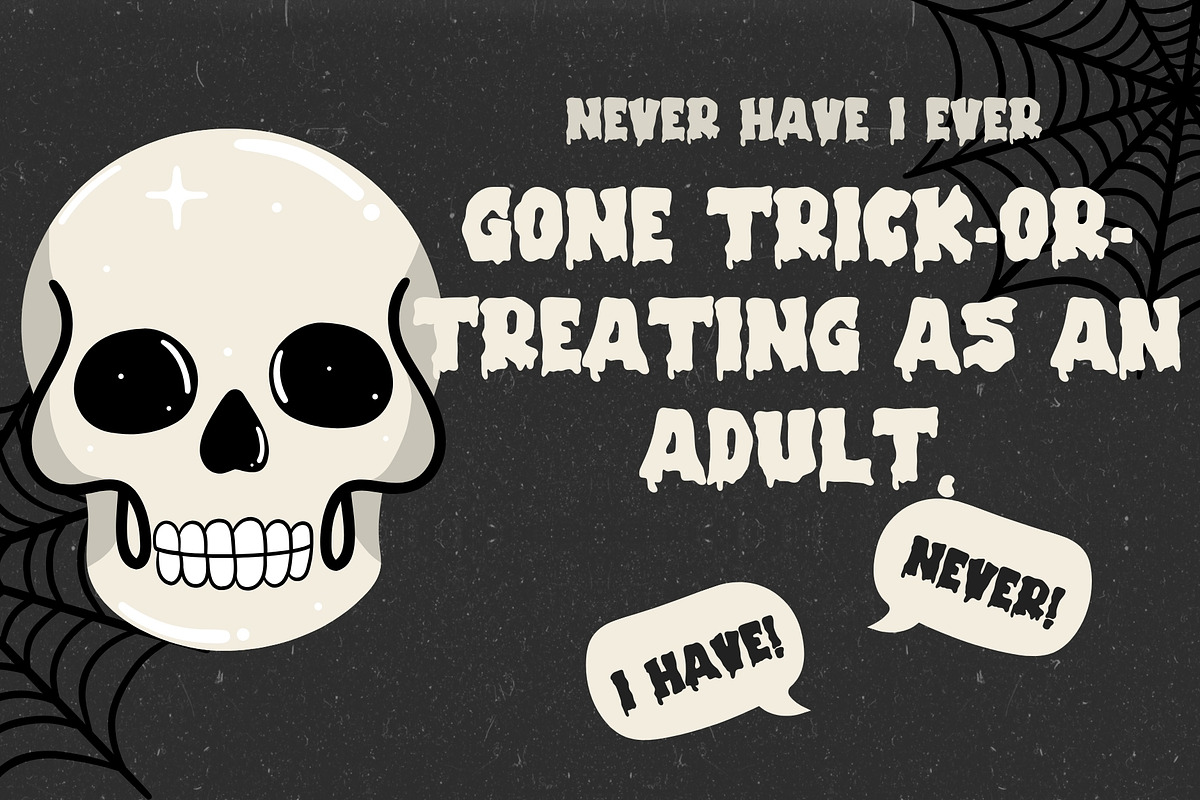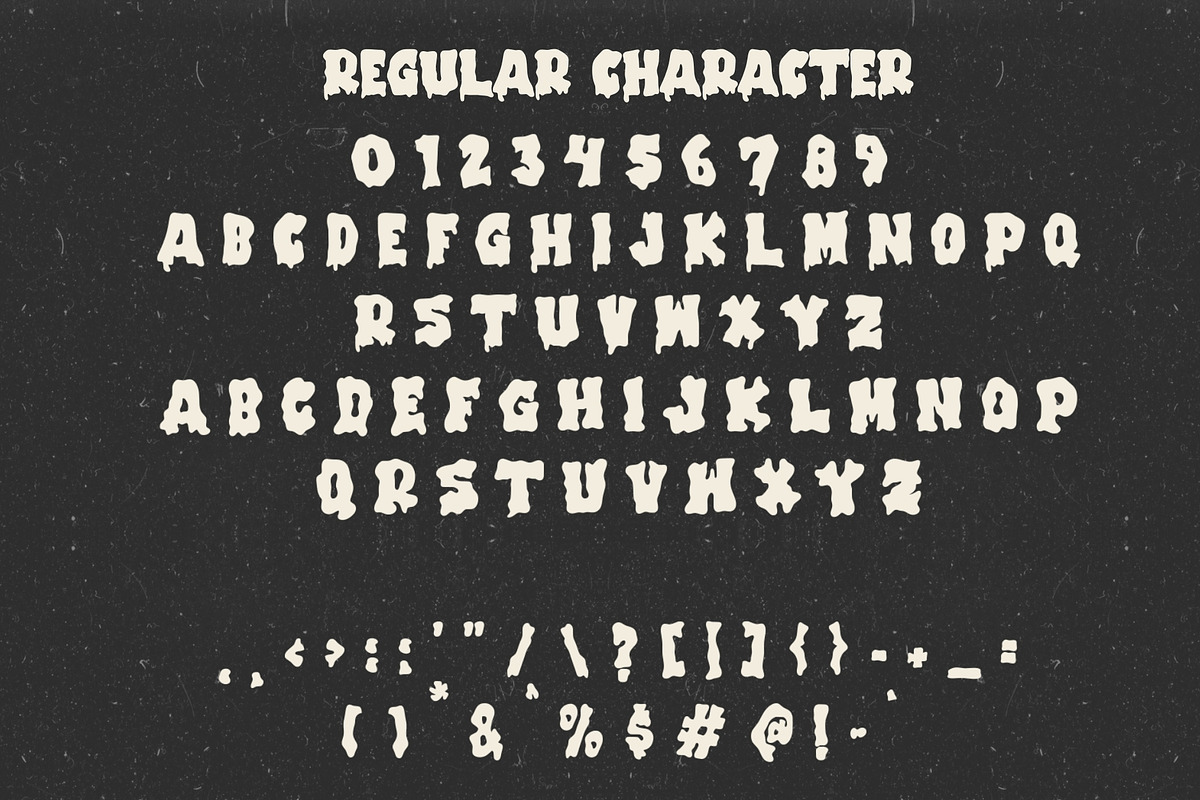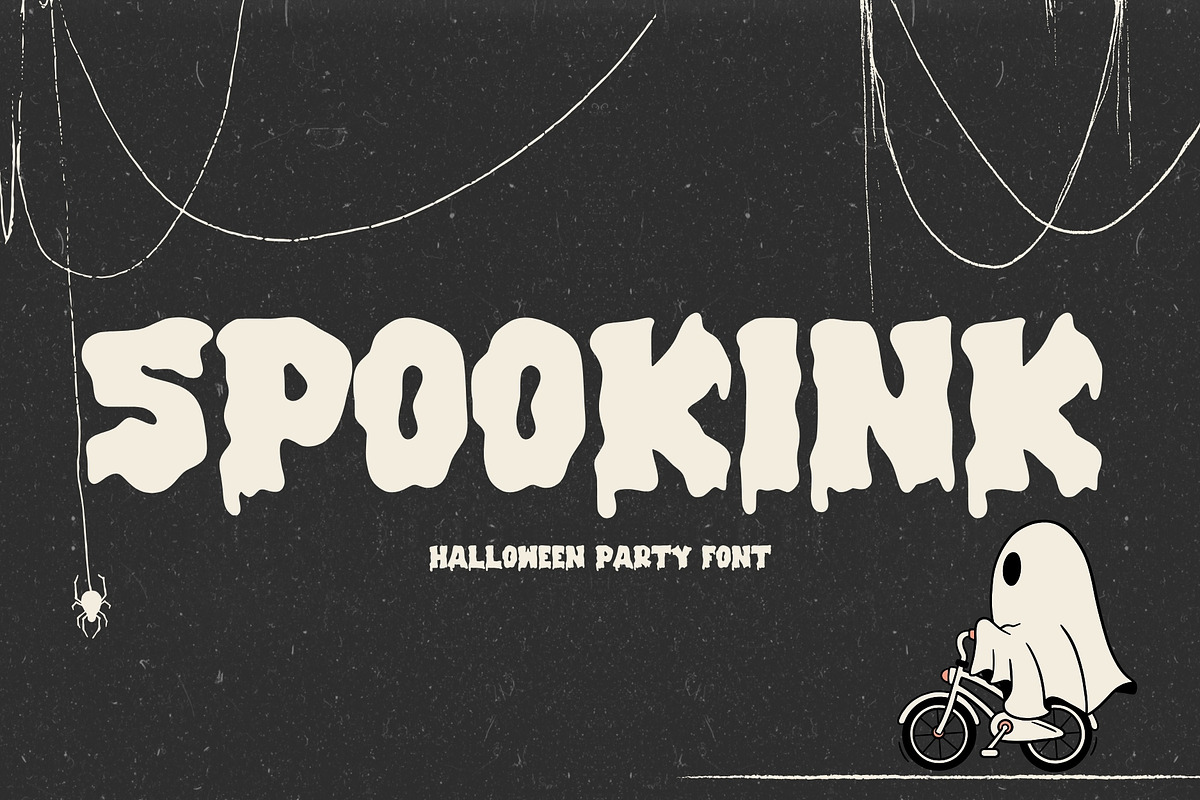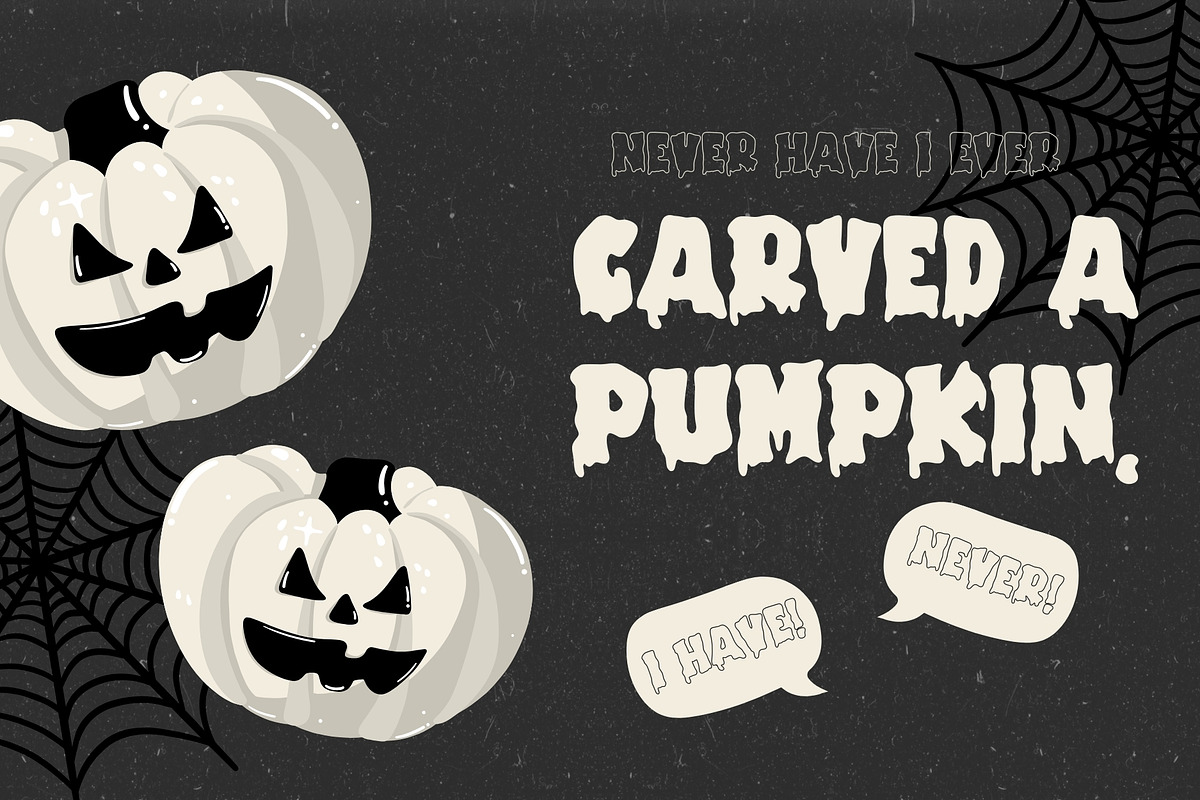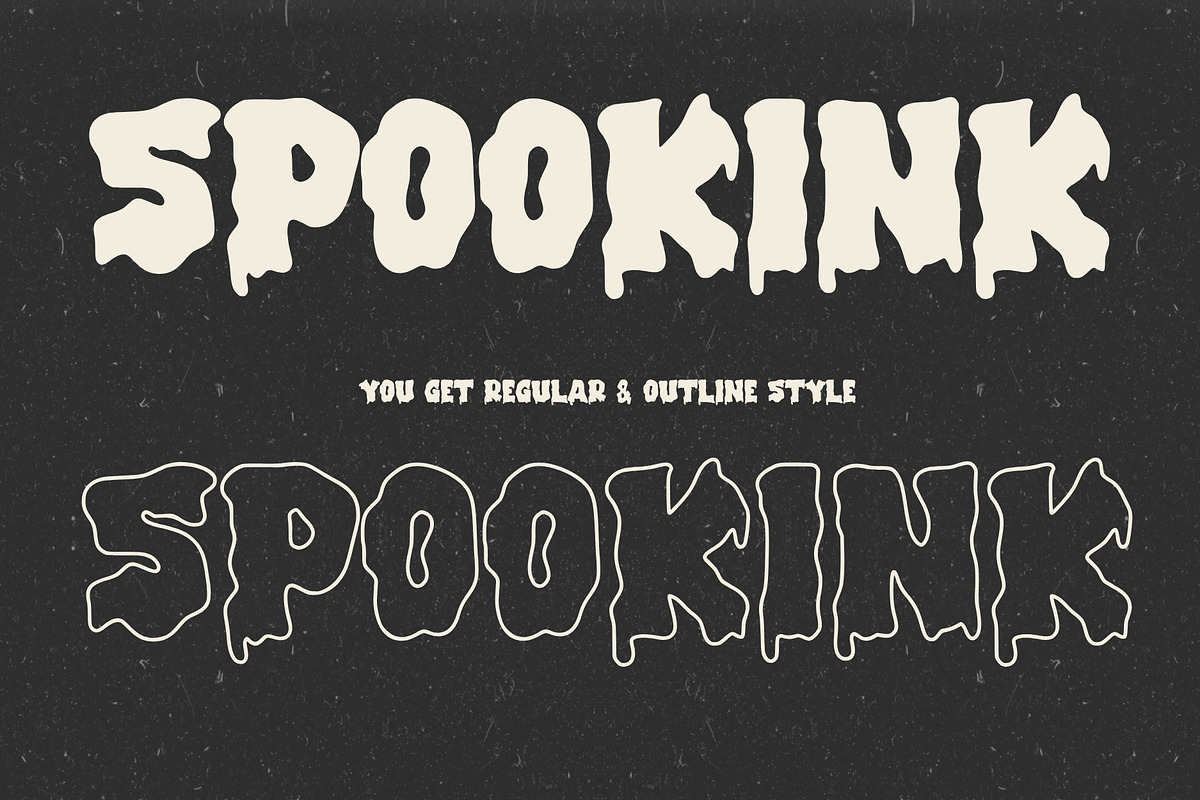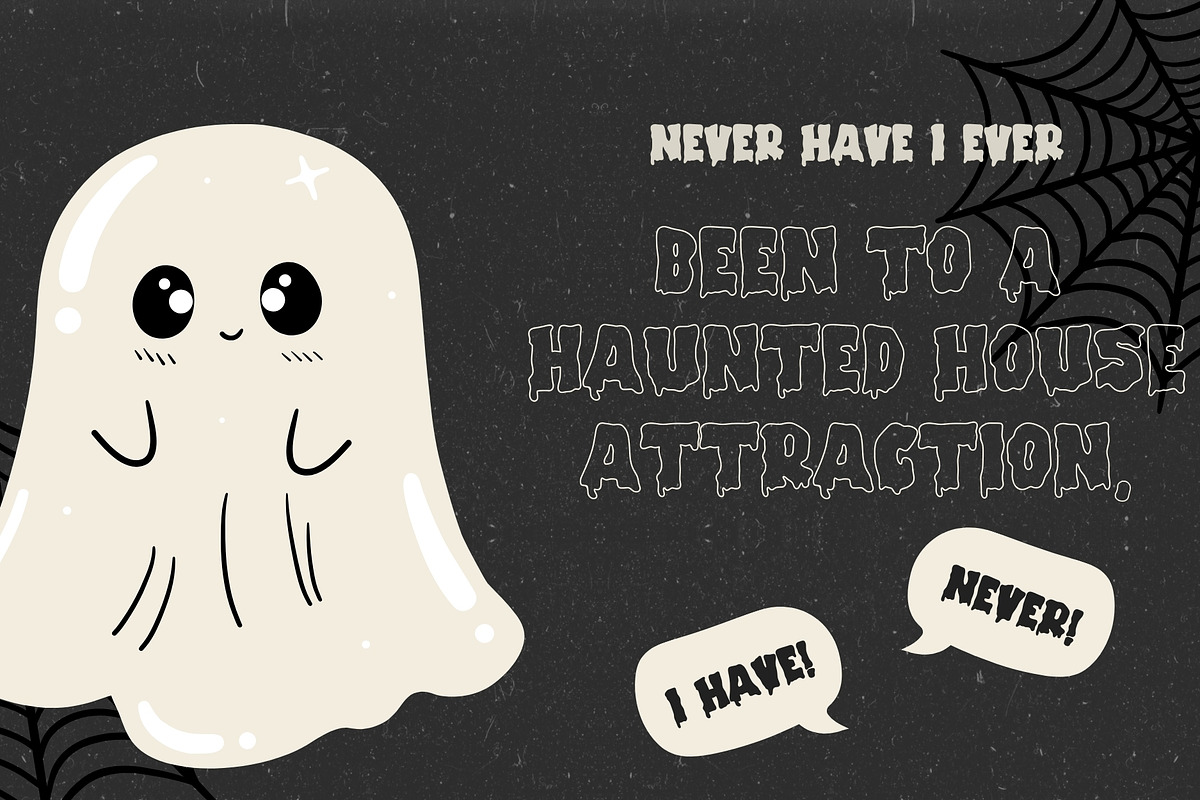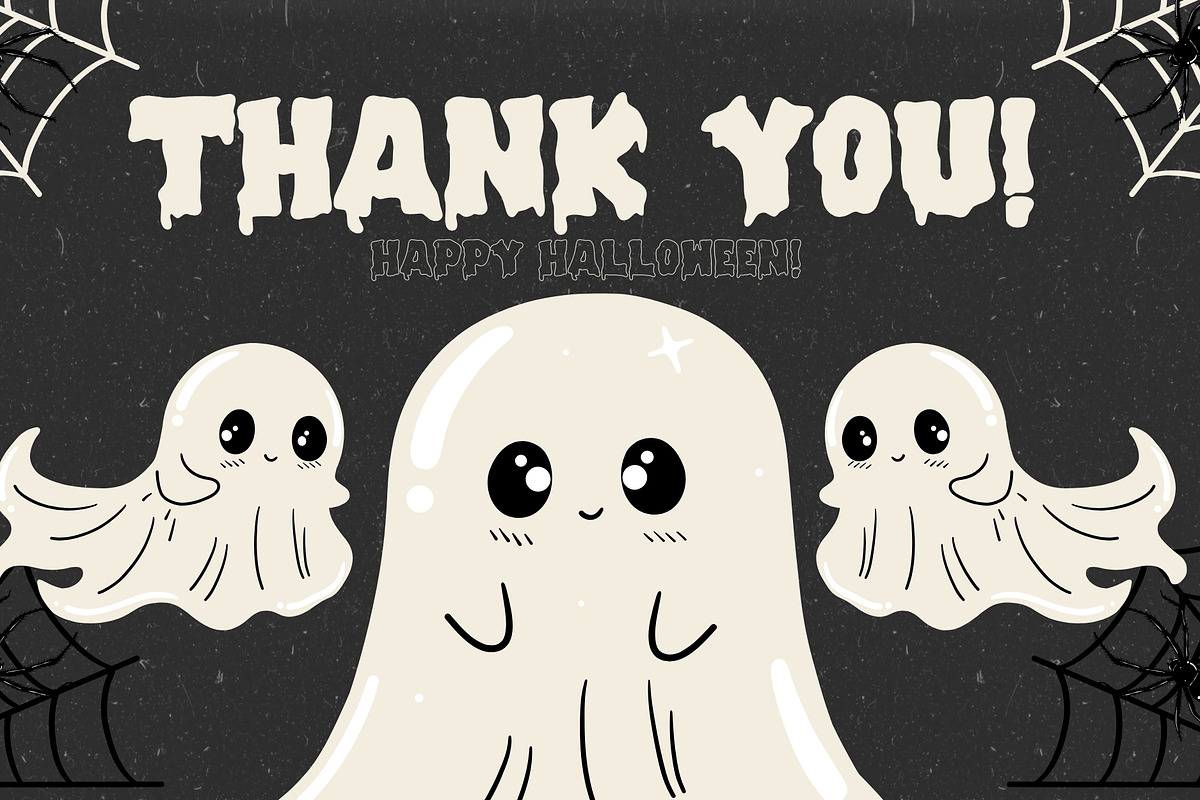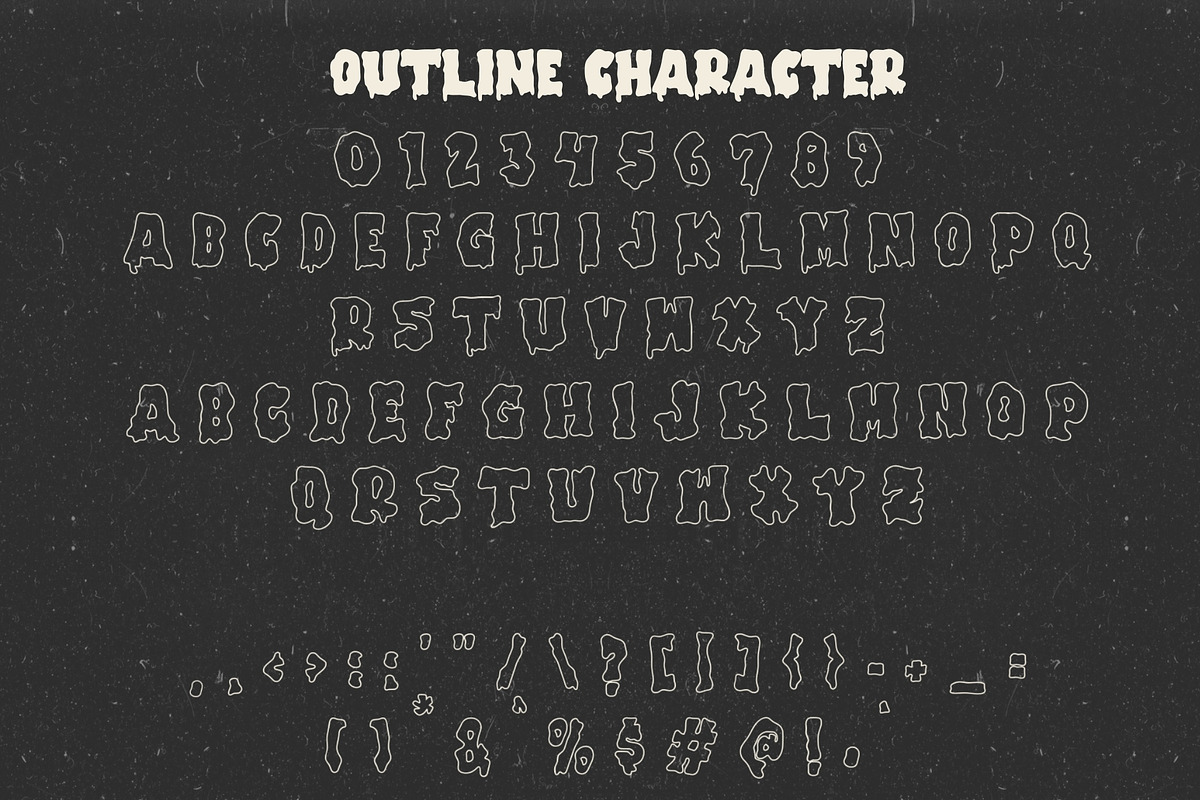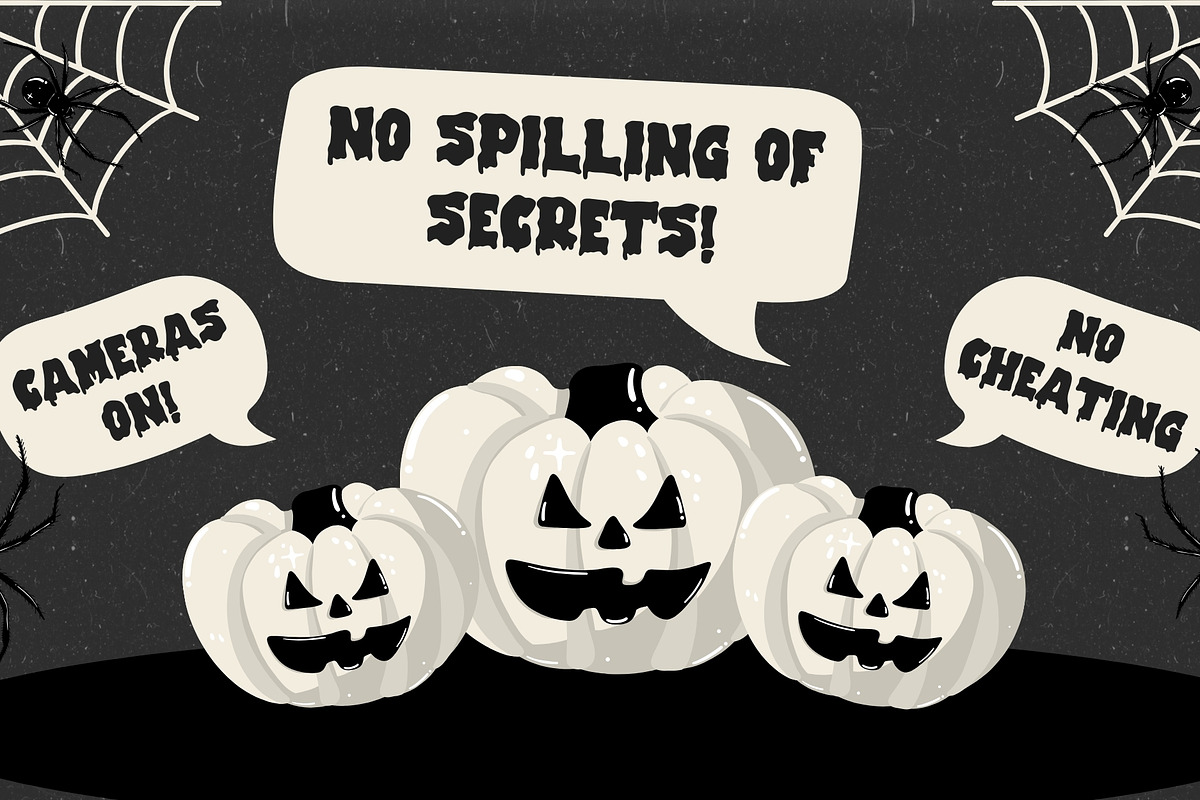
SpookInk - Halloween Font
SpookInk: Dripping Halloween Font
SpookInk is a bold and eerie dripping Halloween font designed to bring a spooky and thrilling vibe to your creative projects. This font is inspired by the classic horror movie aesthetic, with its unique dripping ink style mimicking the look of blood or eerie liquids seeping down. It is perfect for all Halloween-themed designs, giving your text an unsettling, ghostly touch.
- Handcrafted Design: Each letter in SpookInk has been carefully crafted to reflect a haunted, horror-inspired look. The irregular dripping effect on each character adds a sinister and creepy aesthetic.
- Versatile Application: Ideal for posters, party invitations, flyers, social media graphics, and Halloween merchandise. It can also be used for haunted house decorations, spooky branding, or even book covers for horror novels.
- High Readability: Despite its spooky, dripping look, SpookInk maintains readability, making it effective for both headlines and short pieces of text.
- Uppercase and Lowercase: Complete with both uppercase and lowercase letters, giving you full flexibility to create the right creepy feel in your designs.
- Symbols and Numbers: Includes numerals and basic punctuation marks to suit various design needs.
Stylistic set
Whether you are designing Halloween party invites, eerie posters, or any project needing a frightening touch, SpookInk is the font that delivers the perfect spooky vibe.SpookInk